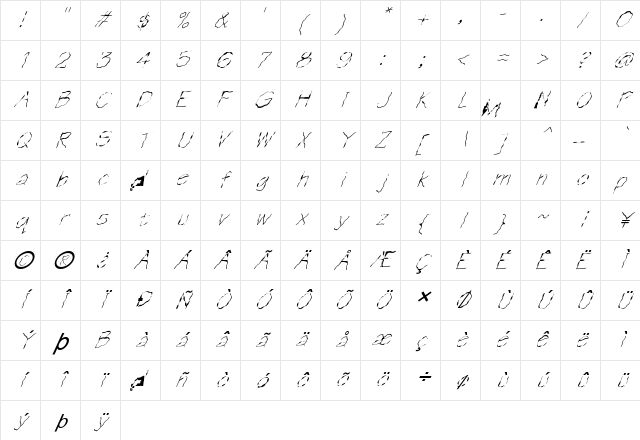
FZ HAND 1 WAVEY ITALIC flows with the natural rhythm of handwritten lettering, making it ideal for designs that call for warmth and personal expression.
Font Pairing: Combine FZ HAND 1 WAVEY ITALIC with a simple geometric sans for maximum contrast - the tension between flowing curves and clean structure is a classic typographic pairing.
Pro Tip: Use FZ HAND 1 WAVEY ITALIC for short runs of text - names, titles, or taglines. Extended body copy in script faces tires the eye quickly.